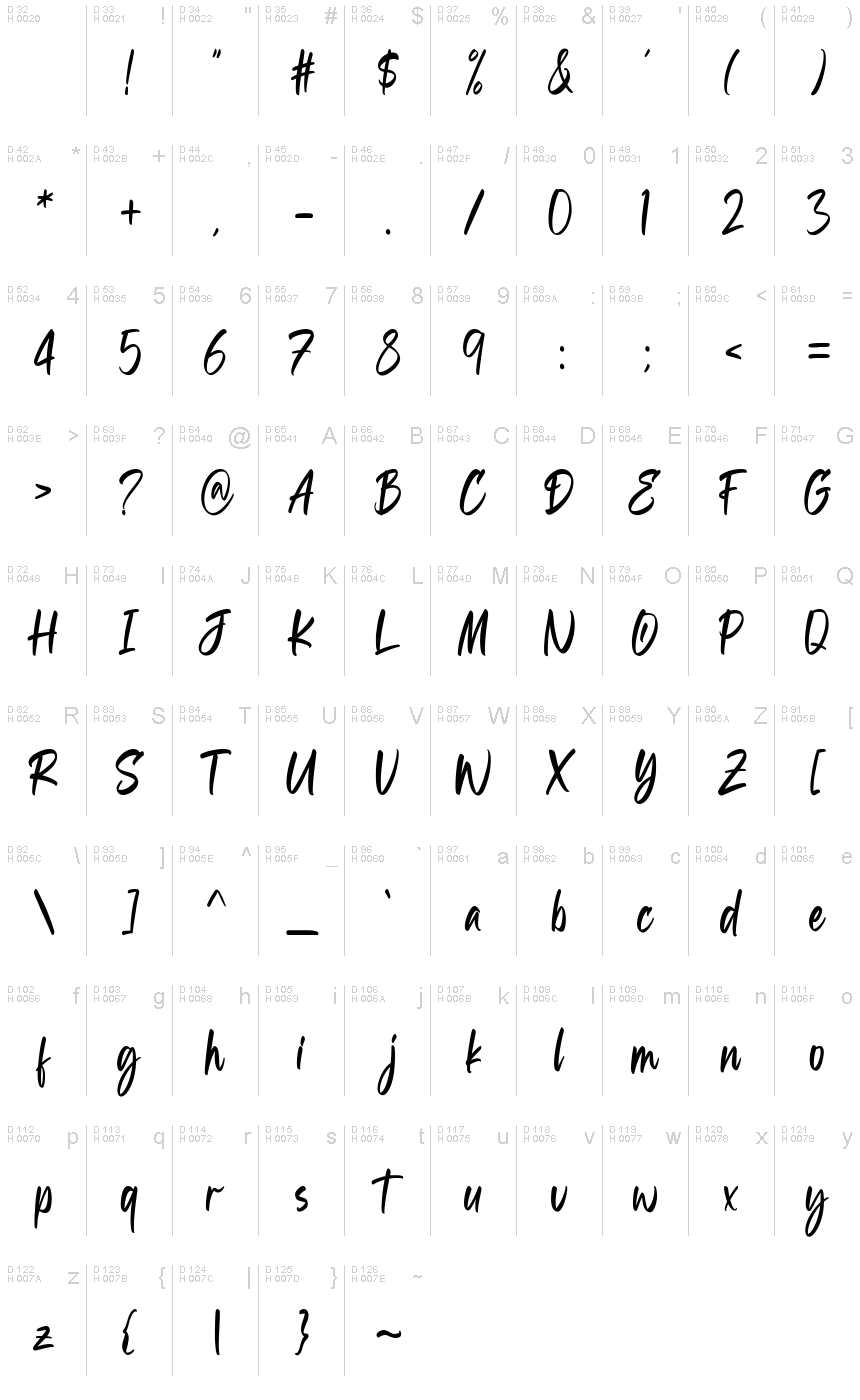
Wonderland
Wonderland, crafted by Alpaprana Studio, is a semi-light and condensed handwritten font that exudes a personal touch with its elegant curves and fluid motion. Its aesthetic appeal lies in the casual yet sophisticated vibe it imparts, making it an ideal choice for designs requiring a touch of intimacy and flair. The semi-light weight provides a delicate finesse to the text, while the condensed style ensures readability even in tight spaces.
This font's handwritten quality adds warmth to invitations, branding materials, and editorial designs where character and originality are paramount. Wonderland's versatility makes it a fitting backdrop for creative projects ranging from whimsical book covers to artisanal product packaging. Embrace the charm of Wonderland for your next design venture and let its unique style narrate your story with grace.